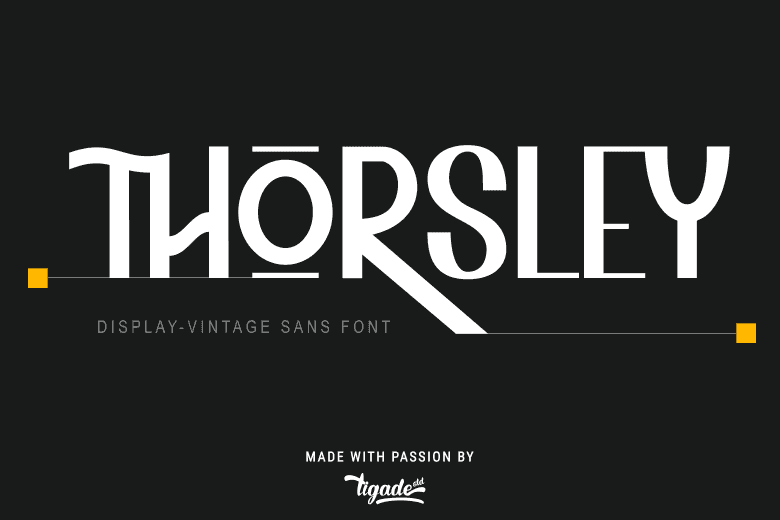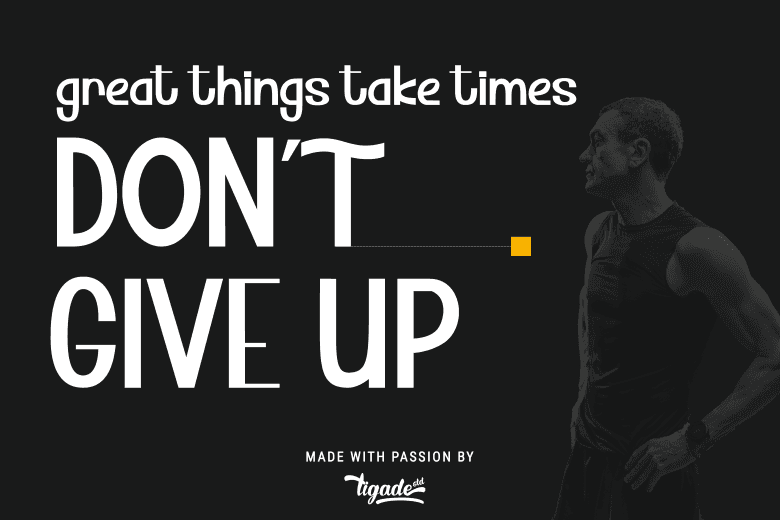
Thorsley classic typeface, is influenced by the letters found in packaging and advertising of the past. Its rigourous shape provides powerful, sharp and blocky emotions. No curves were hurt when creating this typeface.